Most Beautiful Xmas Fonts
1. ChristmasEve Font
This is a beautiful font for Christmas. This font is for personal use only!
2. I Love Christmas Font
How to use this font: Type * (asterisk) for the star. Type | (vertical bar) for the solid star doodle. Type _ (underscore) for the open star doodle. Type [ ] (brackets) for the string of lights. Type { } (curly braces) for the loopy string of lights. Type ~ (tilde) for the Christmas tree. Type ^ (caret) for the ribbon.
3. Brannboll Font
It's nice font for this Christmas and it's free for personal use only. Use 0-9 for swashes. Example: Brannboll2
4. One Starry Night Font
This font is very fun, and has strong roots in handlettering. The swirls and swoops found in the letters gives off a lot of energy, and the thinness of the letters ensures the typeface isn't too overwhelming.
5. Chopin Script Font
Script fonts are always a great choice for holiday designs, and Chopin Script is no exception. The thin letters paired with the subtle accent lines makes for a truly elegant typeface, which would work with a number of holiday designs.
6. Merry Xmas St Font
7. LMS Let It Snow Font
Let It Snow font features snowflakes embedded in the designs. Approximately 1 1/2 inches high, it matches the Let It SnowMan! pillow (so you can add more text), but, is perfect on its own. Uppercase, lowercase, numbers and punctuation.
8. JF Snowbiz Font
9. Santas Big Secret BB Font
Santas Big Secret BB is a wonderful free Christmas font that features elegant letters.
10. Alaskan Nights Font
Alaskan Nights is a nice free font with snow effect on the top of the letters.
11. Ice & Snow Font
12. Summer's Snowman
13. 101! Gift Font
14. First Christmas Font
15. Bonnet Font
Free Christmas Photoshop Font Layer Styles
1. Snowy Christmas Font Layer Style
This is an awesome font layer style with snow effect. It's free for using.
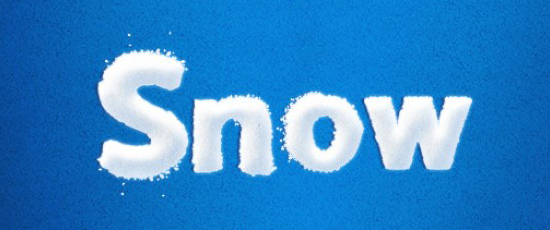
2. Set 5 Christmas Photoshop Text Styles
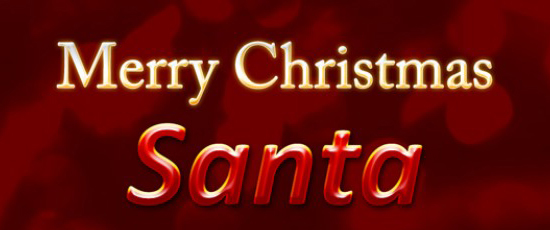
3. Candy Christmas Styles
Treat Cane Style. Give your content or item a treat and Christmas look with this free Photoshop style!
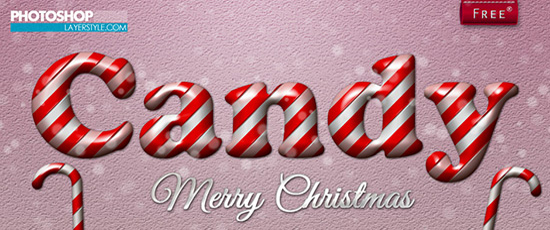
4. 22 Christmas Seamless Tiling Styles for Photoshop
Some instant otherworldly Christmas content impacts made with Photoshop layer styles so they are super simple to change.
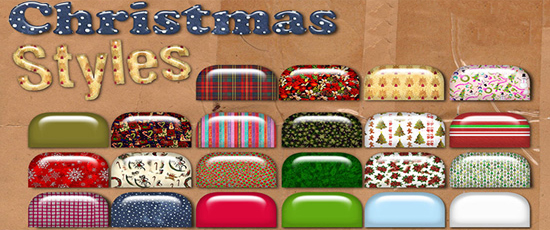
5. 10 Christmas DeLuxe Photoshop Layer Styles
Choice Photoshop Layer Styles C3 made with one layer in one of a kind, sparkling, extra vagance look and focused around tile able examples.
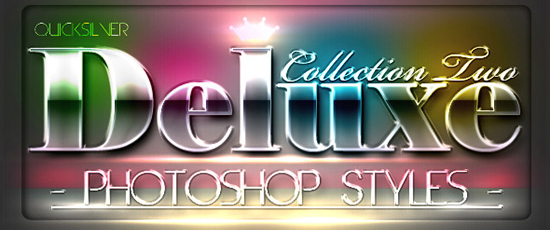
6. Merry Xmas Text Style
You can easily edit the text and write whatever you want, so it will suit the needs of your final design. Please make sure you read the enclosed license and use this free PSD resource for any personal or commercial project.
7. Christmas Ribbon Text Style PSD
This lovely Christmas Ribbon Text Style is perfect to showcase any original and stylish branding project.
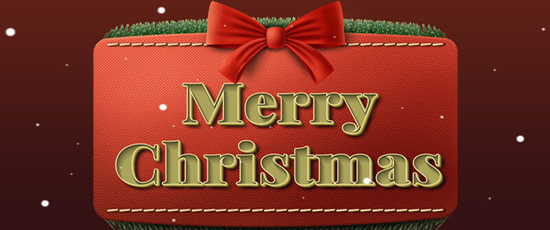
8. Cookie, Snow & Cane Christmas Text Effects
Free Christmas text effects. Editable PSD made with free fonts and layer styles. Contain cookie, snow and candy cane effect.
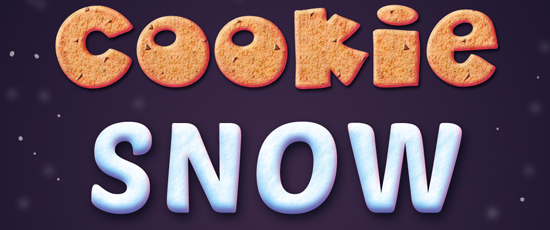
9. Snow Globe Style
An amazing Photoshop font style for this Xmas. You will get all PSD + ASL files in 1 layer.
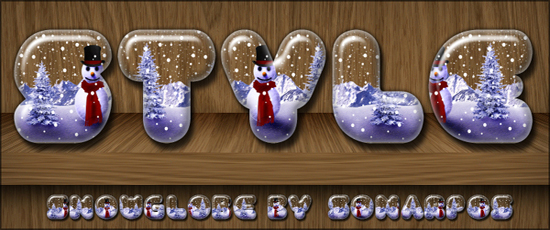
10. Christmas Gift Style